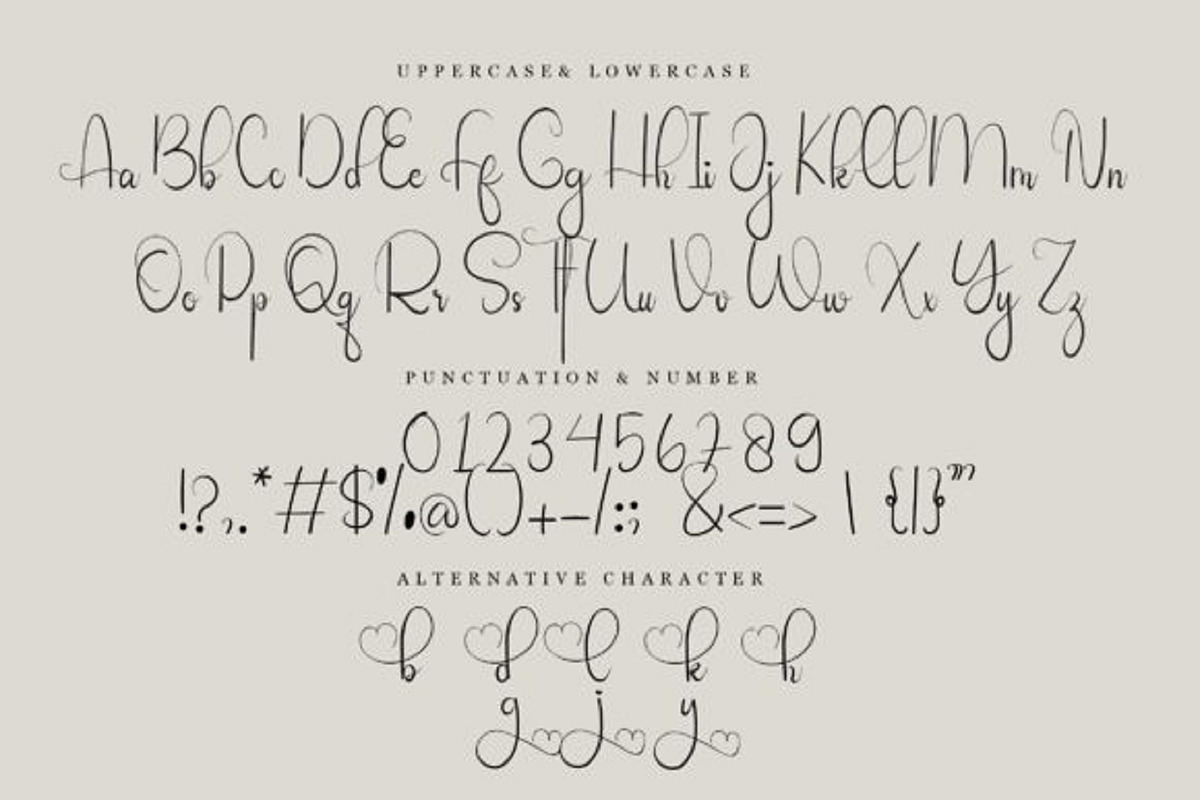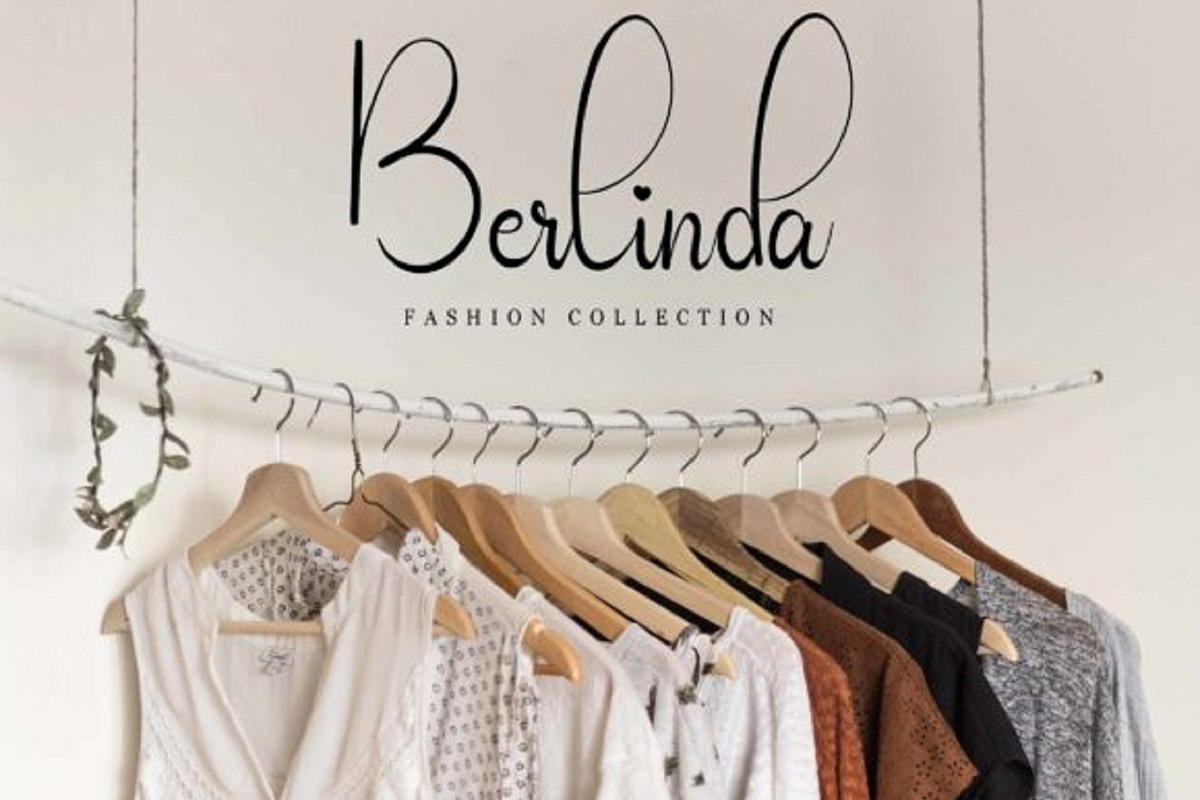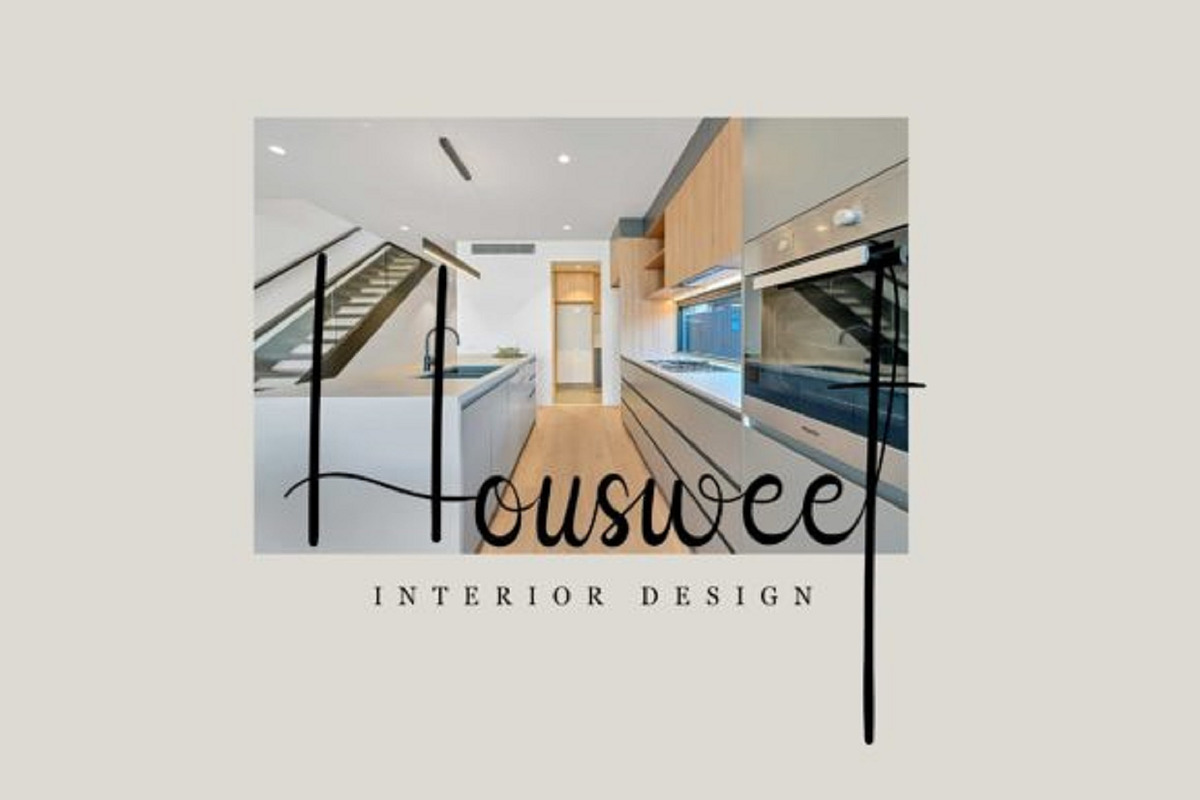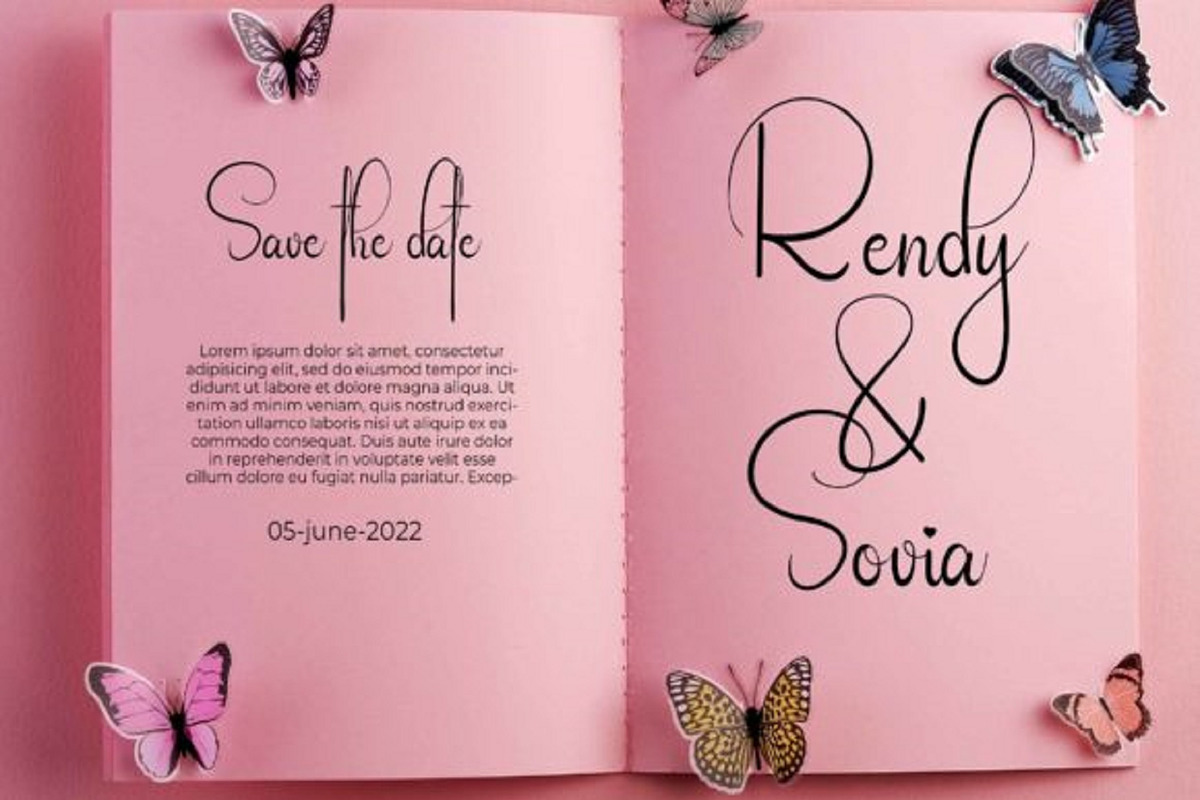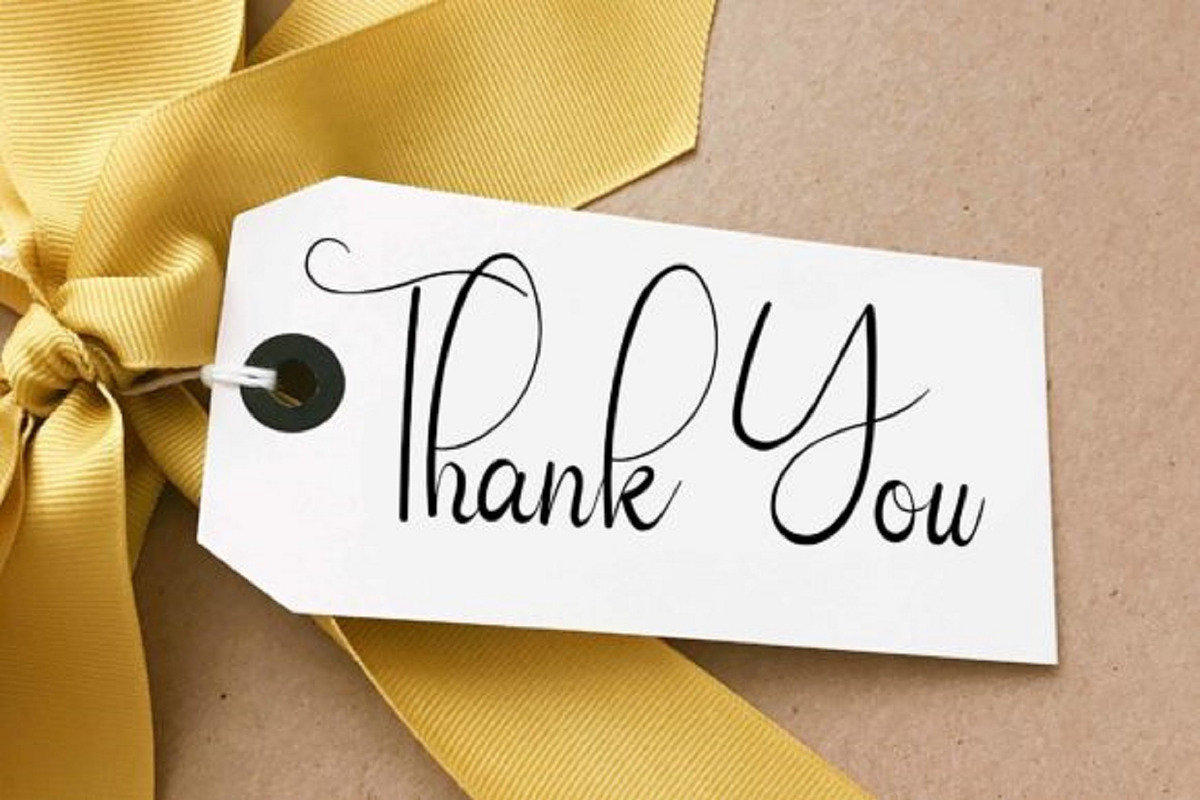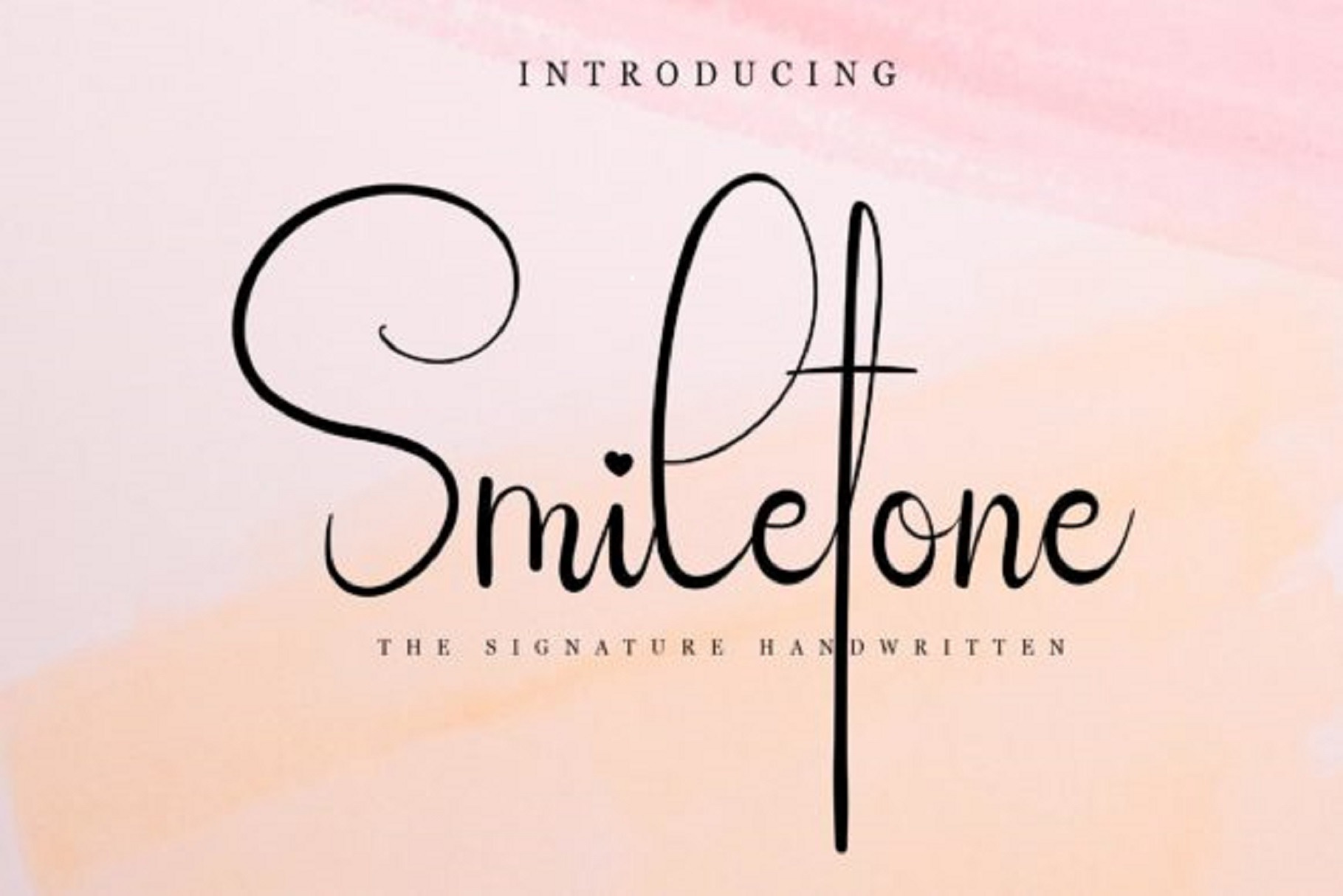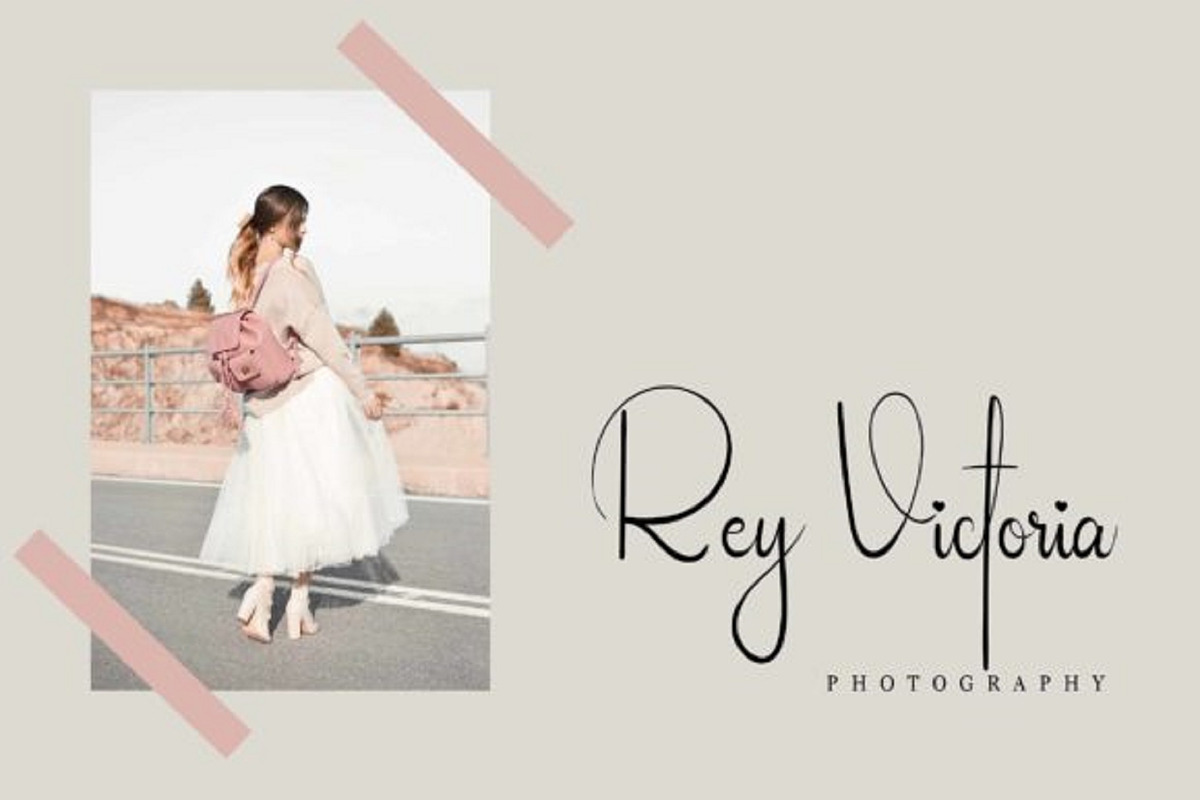
Smiletone Font
Smiletone is an elegant and impressive handwritten signature font. This font is suitable for displaying both formal and informal designs. It is the best choice for creating attractive logos, branding, and quotes. Each letter has a unique and beautiful touch, perfect for designs that require an elegant and beautiful appearance.